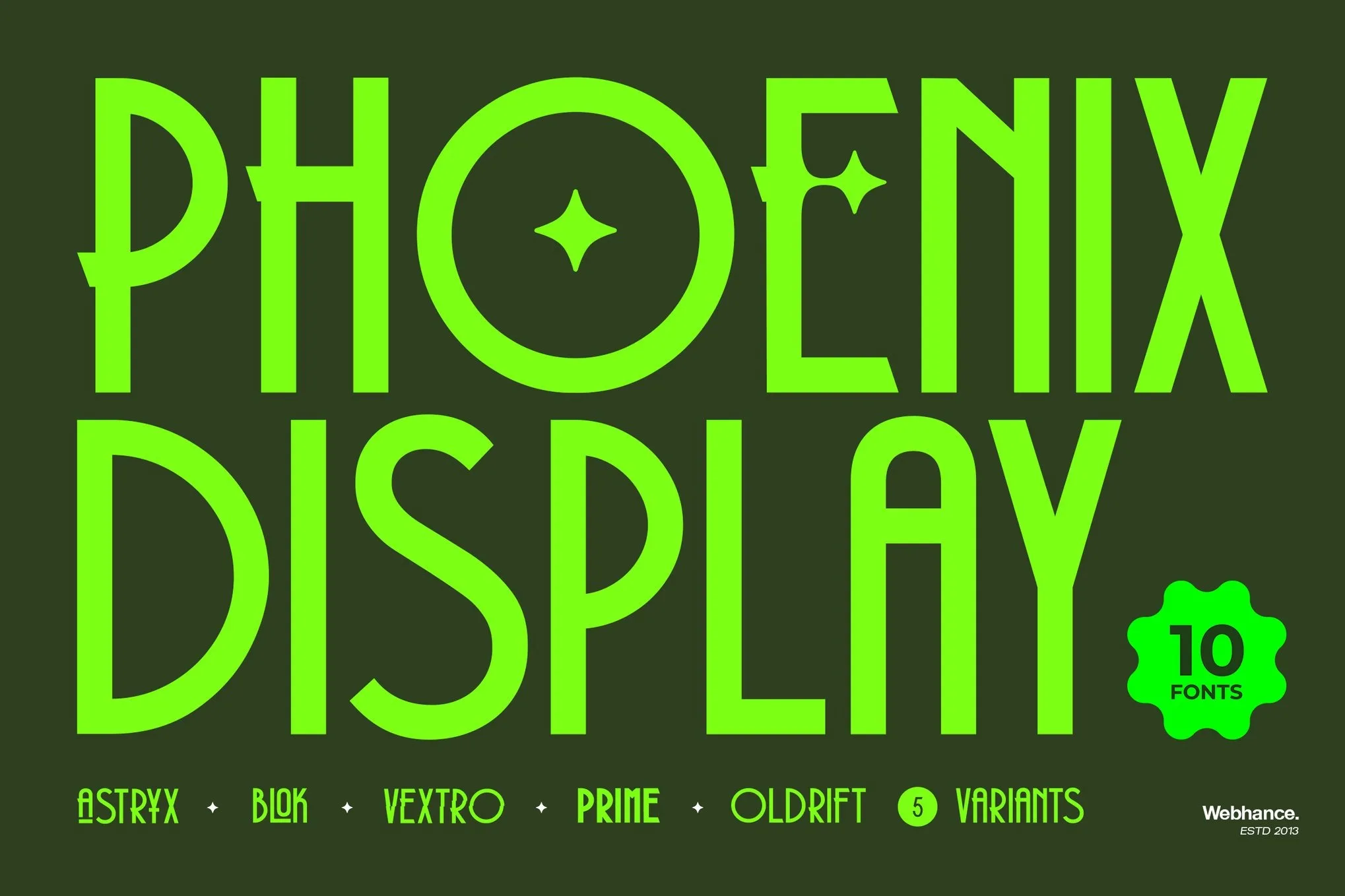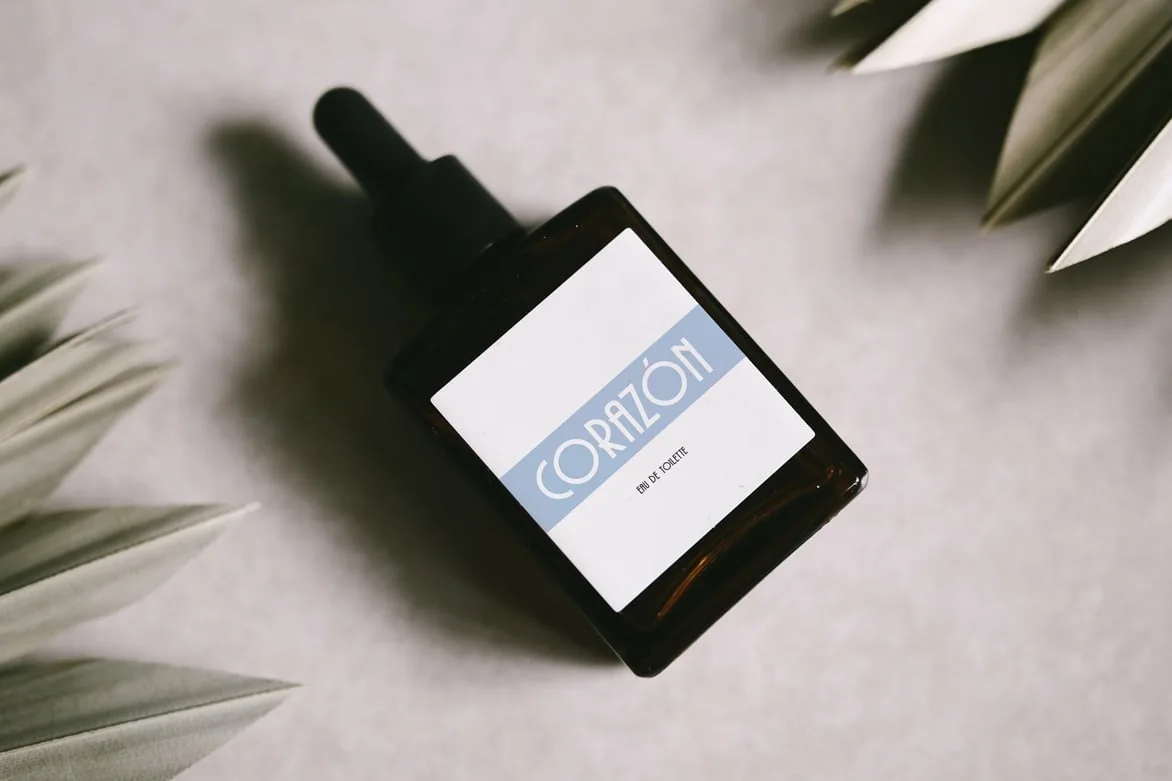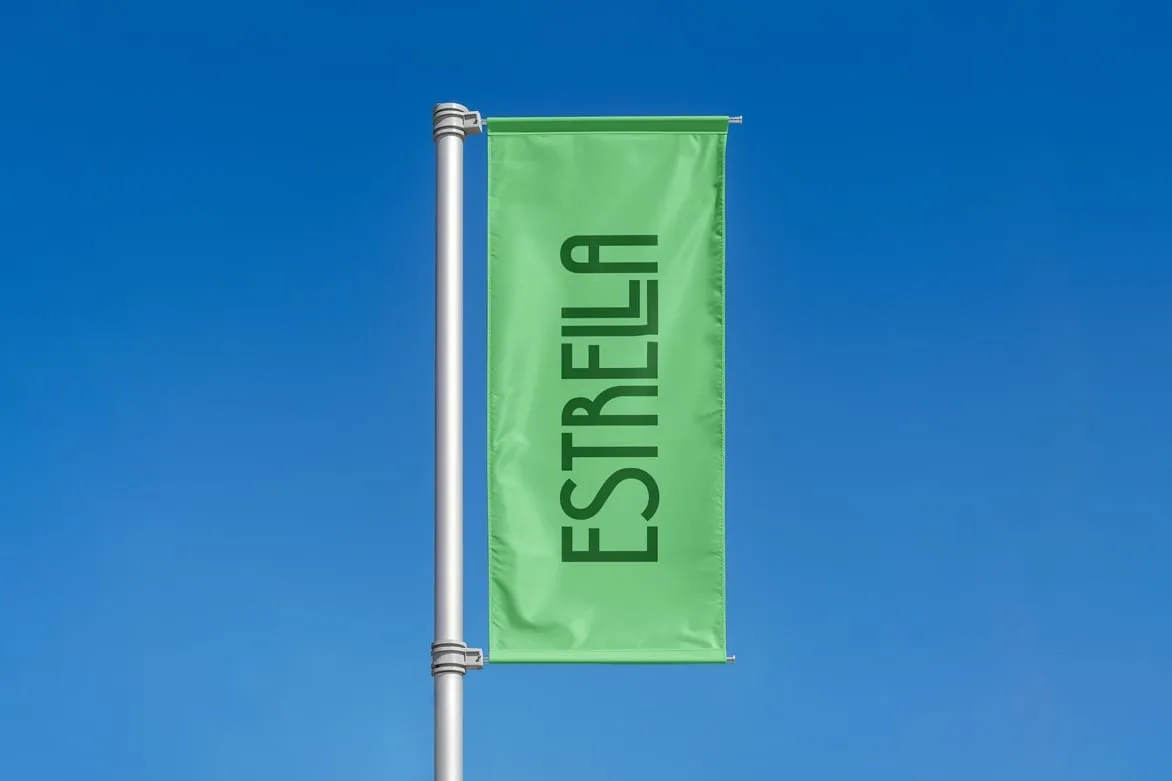
Phoenix Display Font Display is your ultimate choice when boldness and futuristic flair are essential. Designed with cosmic inspiration and modern geometry, Phoenix Display Font Display blends clean cuts, perfect circles, and stellar details to create a mesmerizing visual style. Whether you need sleek minimalism or rugged vintage charm, this font family offers five exciting variants — Astryx, Blok, Vextro, Prime, and Oldrift — ensuring every design project has its perfect match.
With 10 fonts and 5 stylistic variants, Phoenix Display Font Display brings structure, creativity, and an unstoppable energy to your projects. Its versatility shines in branding, editorials, sci-fi posters, gaming titles, luxury packaging, and social media graphics. Each variant has been crafted to maintain visual consistency while offering a fresh voice, making it an indispensable tool for designers seeking impact and innovation.
Beyond just aesthetics, Phoenix Display Font Display was engineered for functionality and adaptability. Whether you’re creating standout headlines or immersive visual experiences, this typeface family ensures your message bursts through with cosmic brilliance. Experience how geometry, creativity, and boldness collide in one breathtaking package designed for the future.